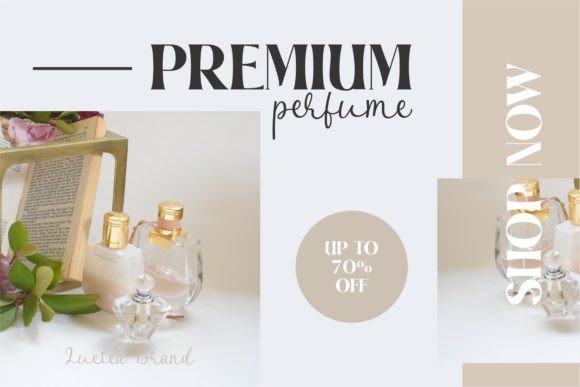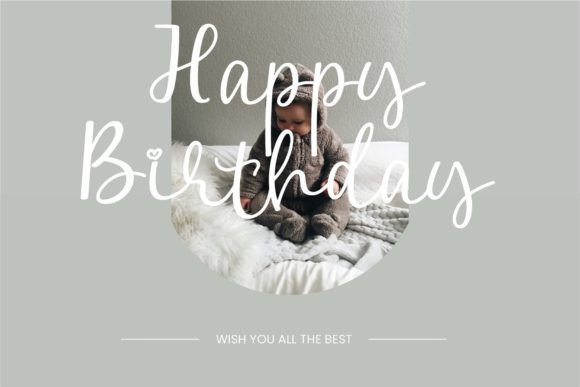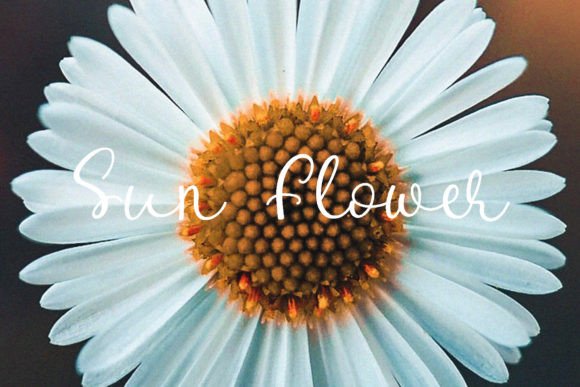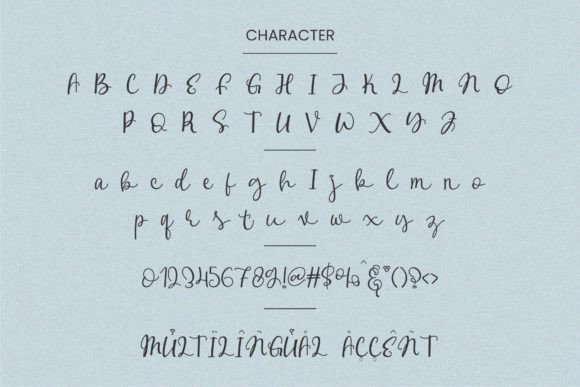
Introduction to Mortalue Font
Mortalue is a magical script font carefully created with a touch of elegance.
Whether youโ€™re looking for fonts for Instagram or calligraphy scripts for DIY projects, this font will turn any creative idea into a true piece of art .
Mortalue Font offers exceptional quality and versatility, making it a valuable addition to your design toolkit. Whether you’re creating for personal projects or commercial use, Mortalue Font delivers professional results.